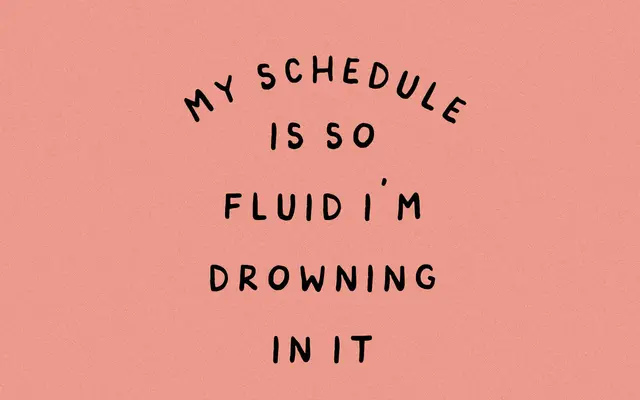
Kula specimen from Taylor Penton
A single-weight hand-drawn display face offering caps and small caps with a deliberately imperfect, informal character.
Kula comes in one weight and provides two full glyph sets, uppercase and small caps, both carrying a slightly irregular, handcrafted quality. The face sits at a relaxed, informal register without tipping into chaos, making it suited to branding, packaging and editorial work that wants warmth over polish. Glyph coverage is basic Latin with a limited selection of accented characters, totalling 151 glyphs.
Kula is described as hand-drawn with a slightly imperfect, natural feel, featuring caps and small caps with expressive character. This places it firmly in the display category as a hand-drawn or informal display face.